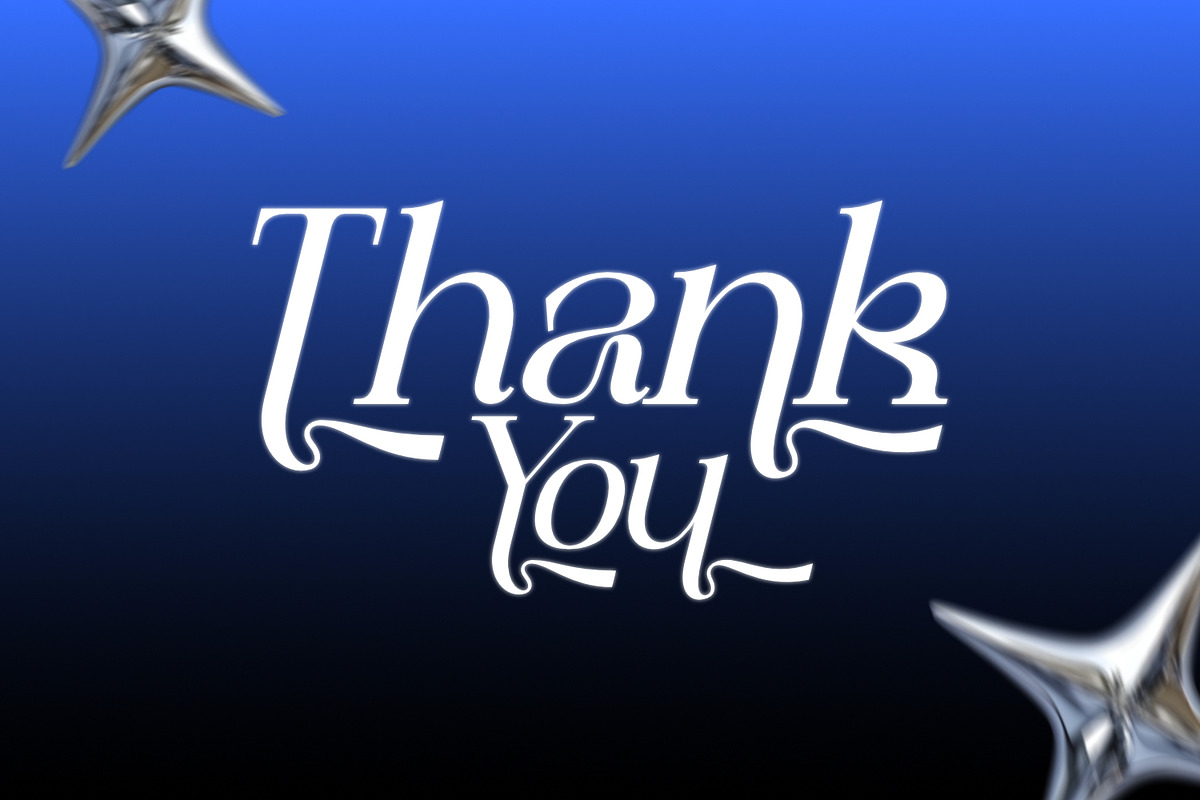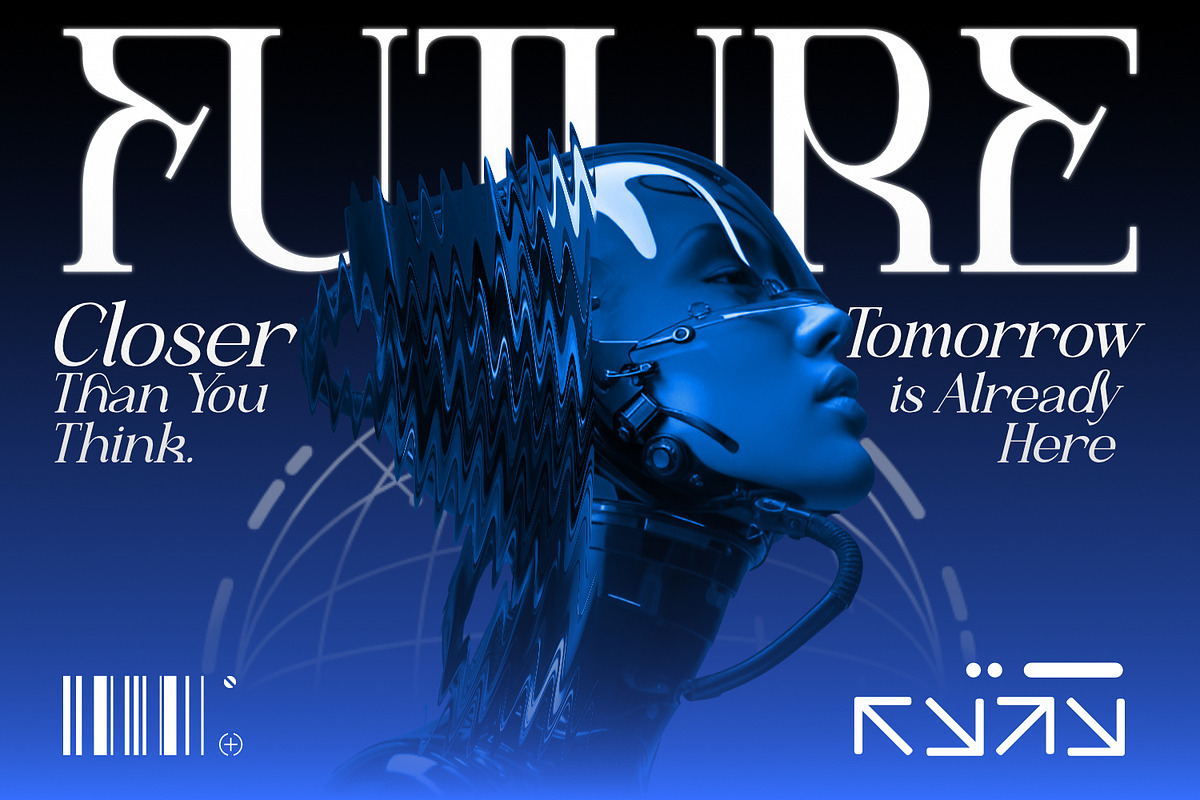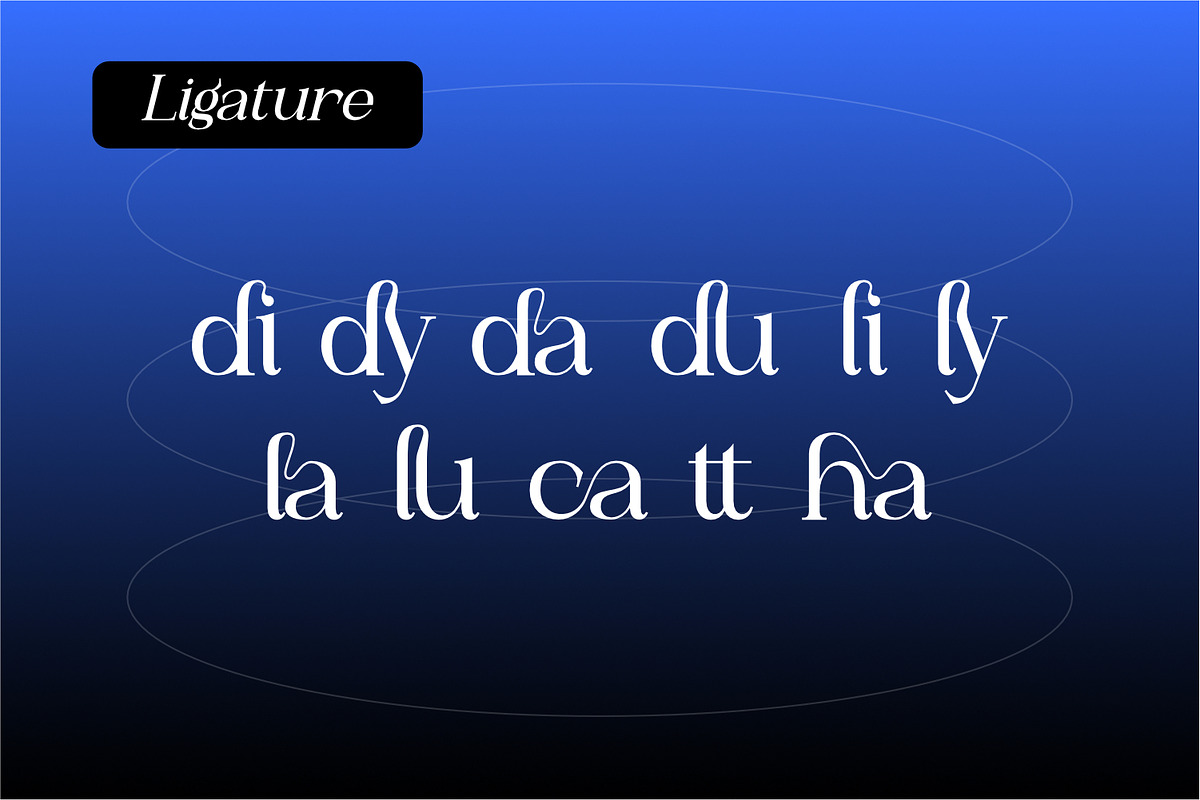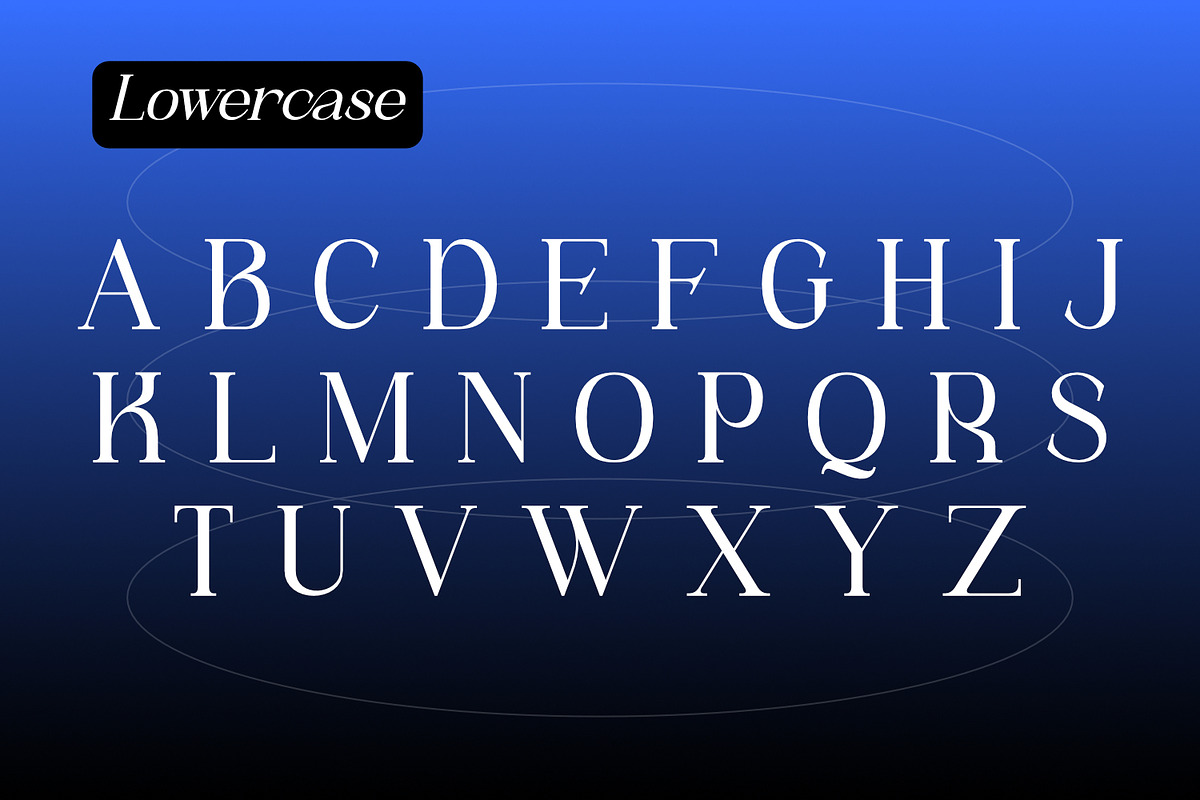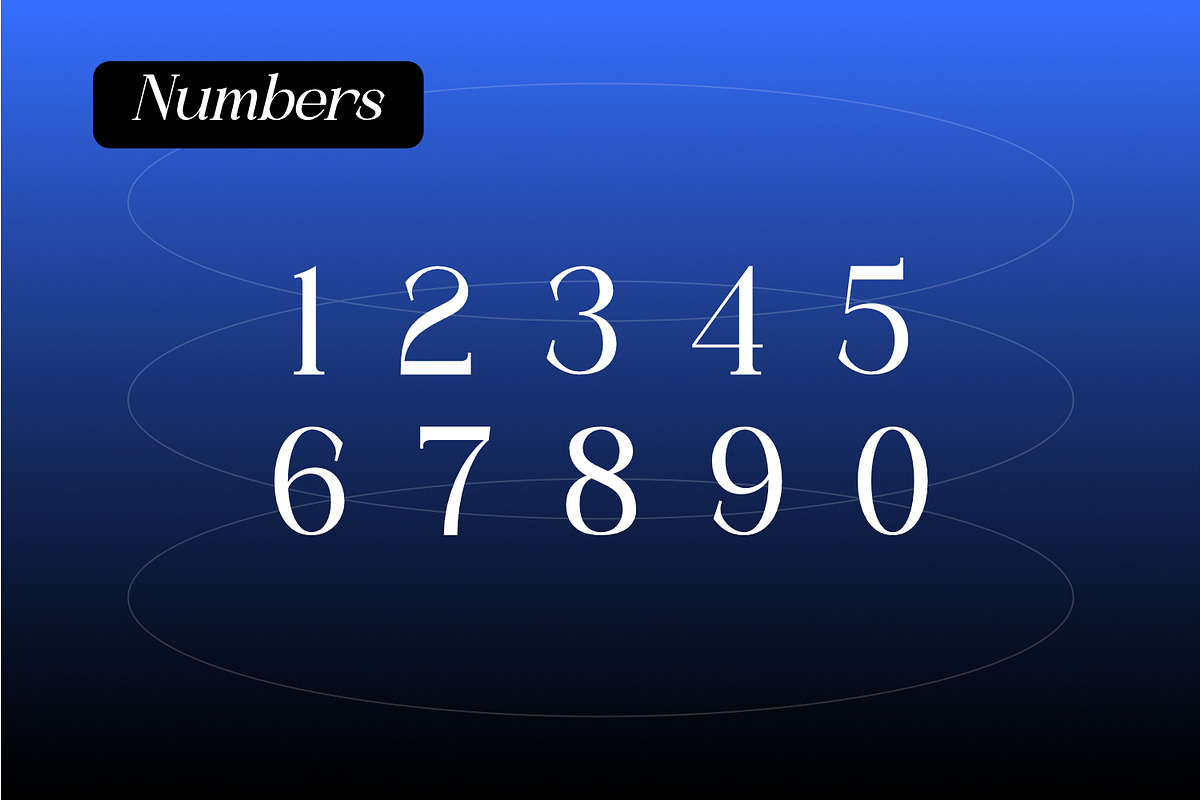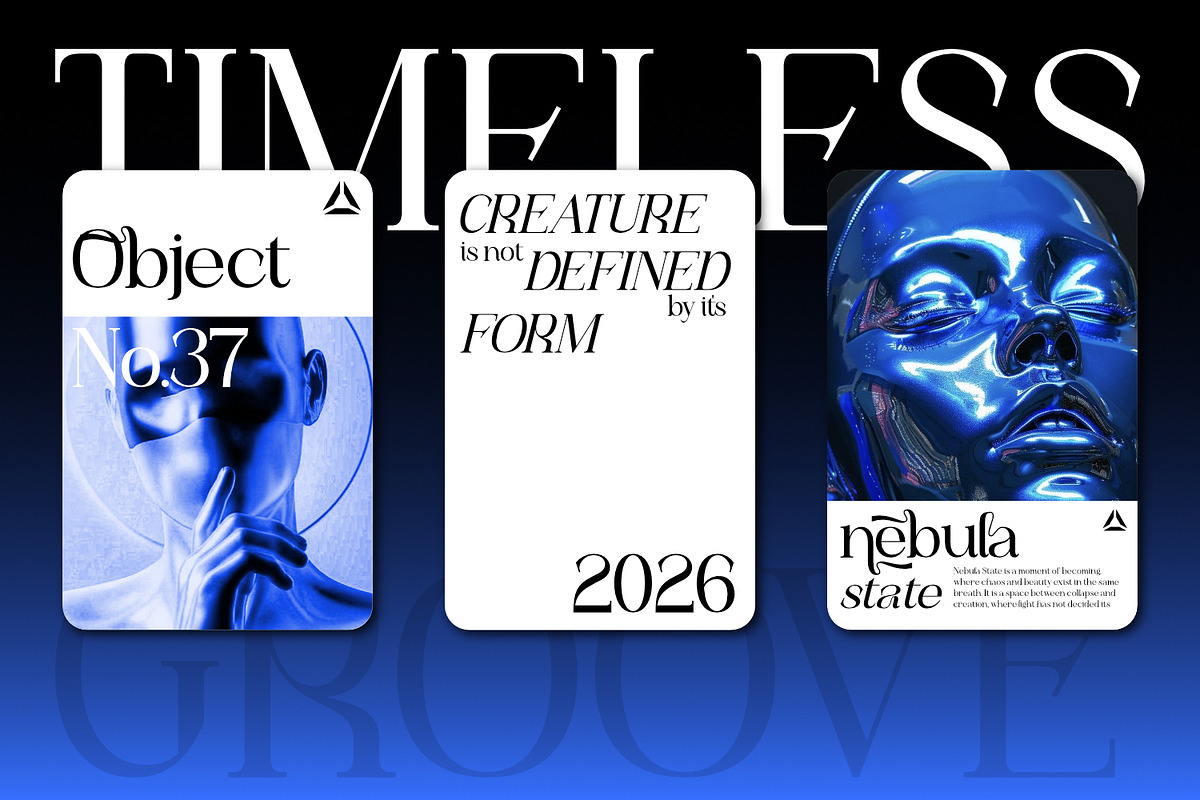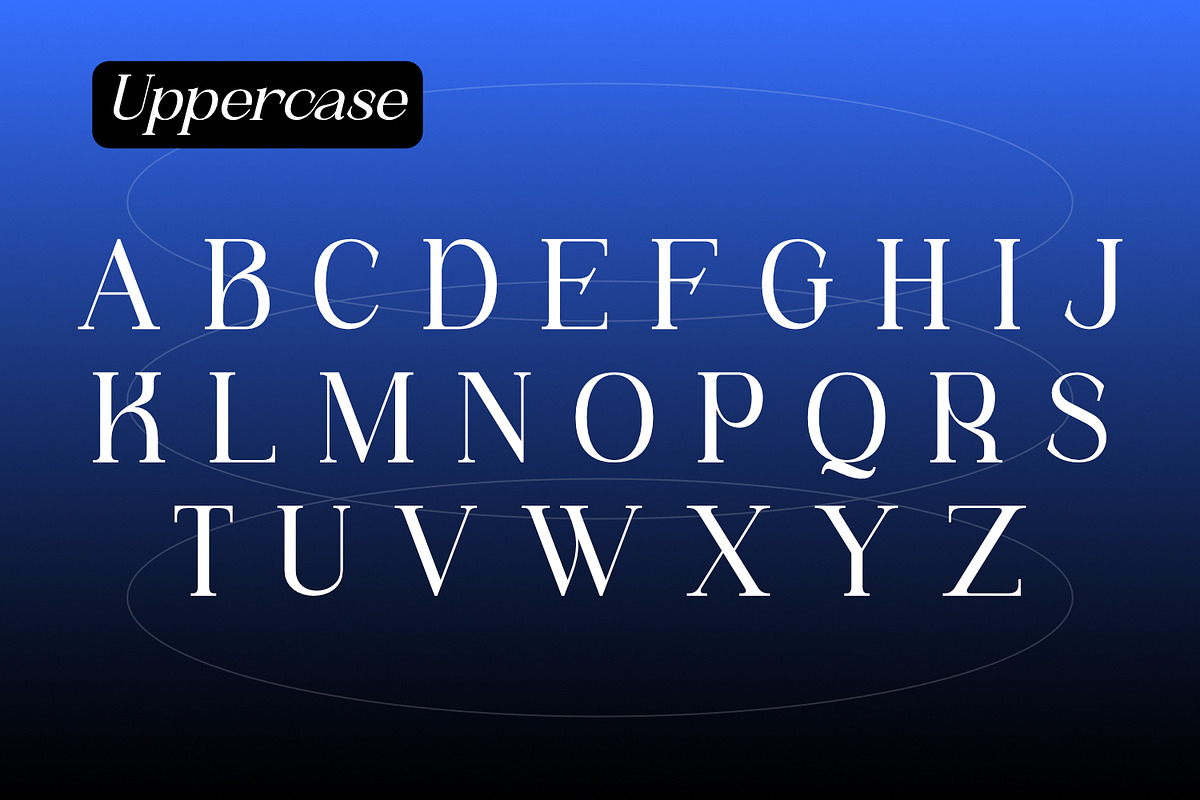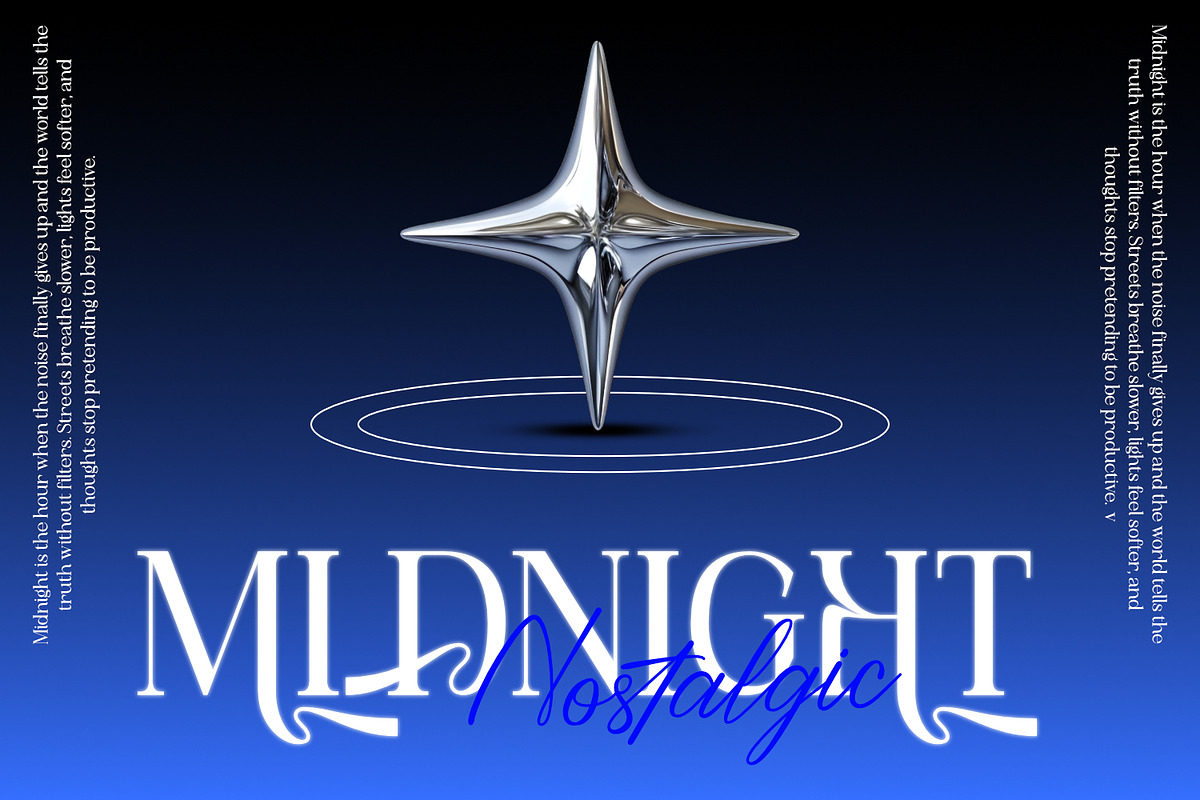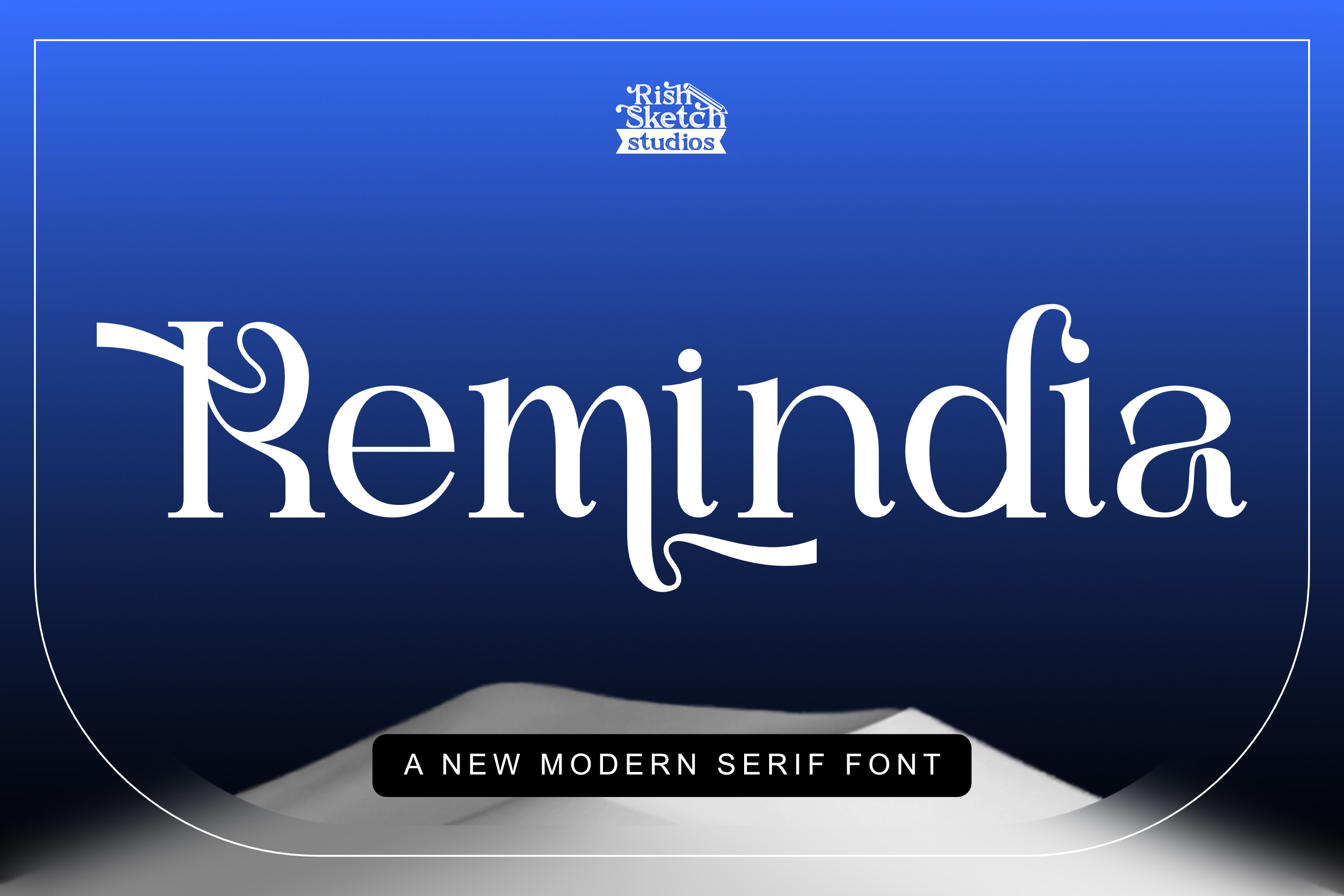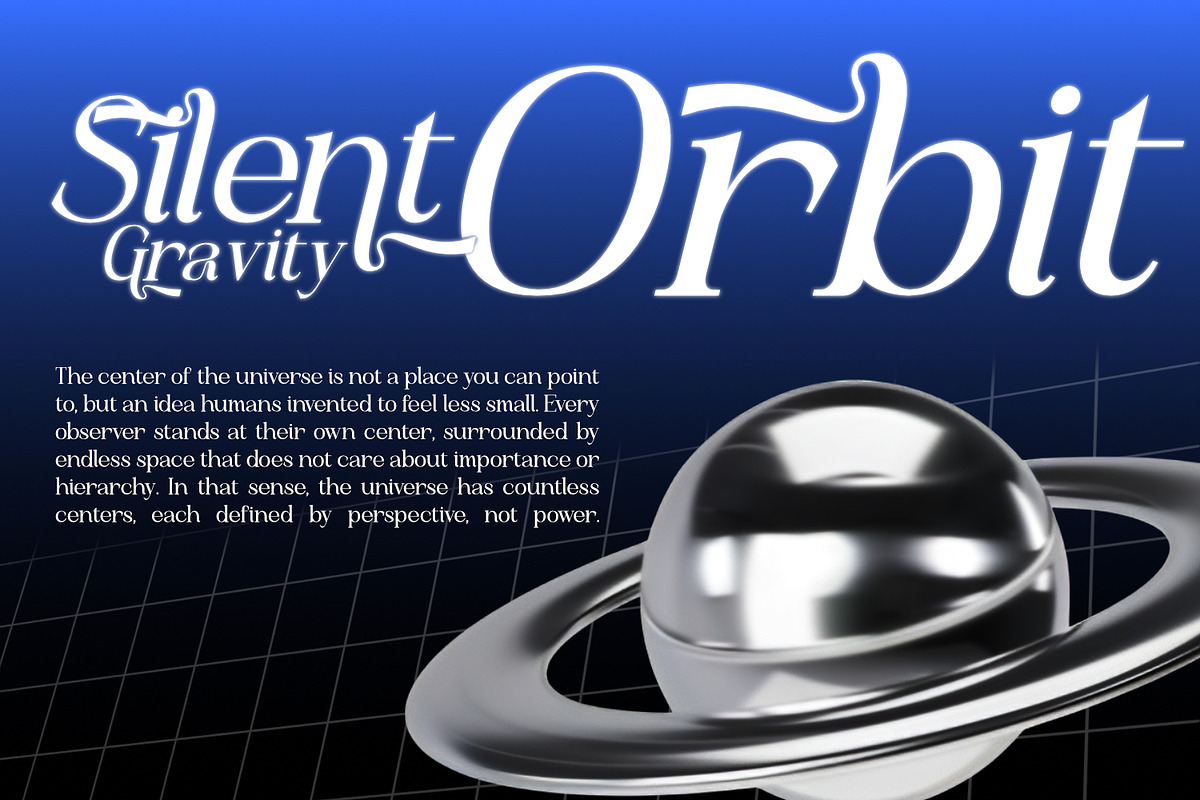
Remindia - Modern Serif Font
Remindia - Modern Serif Font, from Rishsketch Studios, is a premium Modern Serif Font, perfect for any project that requires a distinctive, and premium feel.
Ligature, Alternate & Multilingual